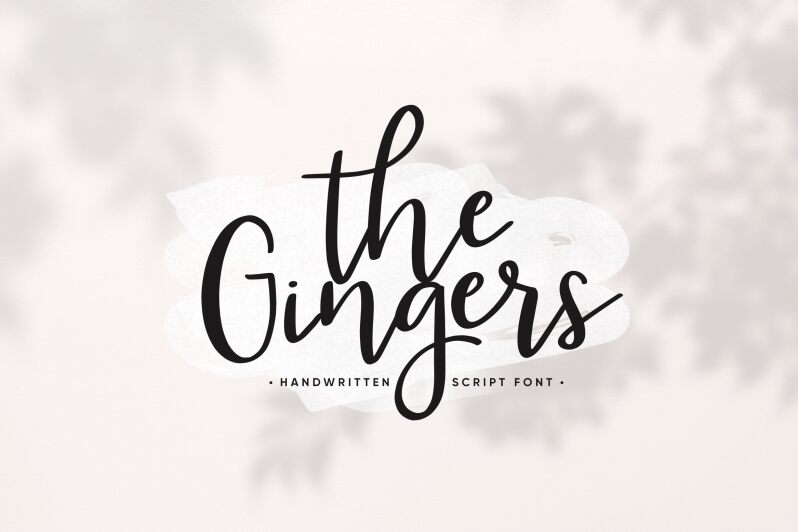
The Gingers
Are you looking for a whimsical font that adds a touch of playfulness to your design? Look no further than The Gingers by Paily Studio. This semi-light, handwritten font exudes a sense of fun and spontaneity, making it perfect for projects aimed at children or those that need an informal touch. Use it for crafting invitations, greeting cards, book covers, or even social media graphics. The Gingers will add that extra dash of personality to any project and is sure to delight your audience. So why wait? Try out The Gingers today and bring some joy into your designs!